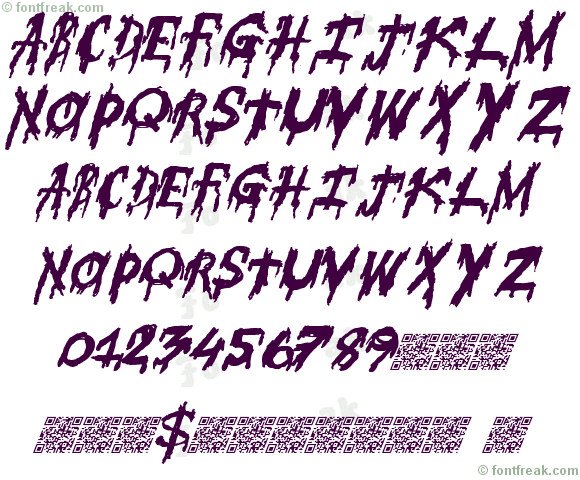
SuperFear
About SuperFear
SuperFear is a distinctive display font designed by XEROGRAPHER FONTS, released in 2014 as freeware. This font is characterized by its bold, jagged strokes and a somewhat chaotic aesthetic, which evokes a sense of urgency and excitement. The stroke weight varies dramatically, lending the typeface a dynamic feel that captures attention. The inconsistent spacing adds to its raw, edgy appearance, making it a standout choice for projects that require a bold statement.
SuperFear is ideal for a range of creative applications, particularly in the realms of entertainment and youth culture. It works exceptionally well for movie posters, especially in genres like horror or action, where the font's aggressive style can amplify the intended mood. Additionally, it can be utilized effectively in promotional materials for punk or alternative music events, capturing the essence of the scene. Restaurant menus aiming for a gritty, urban vibe could also benefit from this font, as it adds a touch of personality and character. Furthermore, SuperFear lends itself well to merchandise designs, especially for apparel aimed at a younger audience, where a rebellious spirit is often appreciated.
The target audience for this font includes graphic designers, small business owners, and content creators looking to make a memorable impression. Whether you’re designing a flyer, an album cover, or digital content, SuperFear provides an intriguing, eye-catching option that stands out in any context.
What sets the SuperFear font apart is its unapologetic attitude and unique visual style, making it a perfect choice for those who dare to be different. With a SuperFear font free download, you can easily incorporate this energetic typeface into your projects, ensuring they resonate with a bold, contemporary flair.